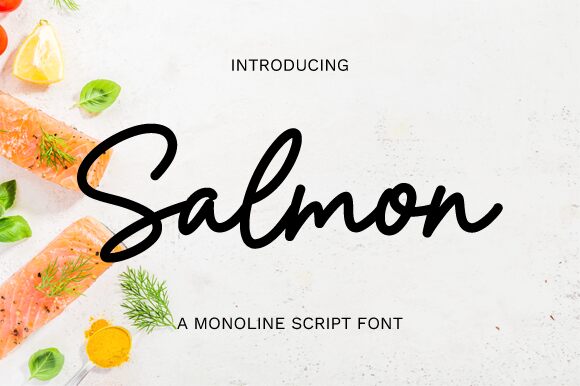
Salmon
Salmon, a captivating monoline handwritten font crafted by Graphix Line Studio, exudes a sense of effortless elegance and casual sophistication. Its fluid, organic strokes convey a warm and inviting tone, making it a delightful choice for a wide range of design projects. The font's distinctive character and alluring aesthetic lend themselves seamlessly to branding, packaging, and editorial applications, imbuing them with a touch of refined charm.
This versatile font shines in contexts where a personal, handcrafted feel is desired, such as in wedding stationery, greeting cards, or artisanal product labels. Its natural, expressive qualities also make it an excellent selection for lifestyle blogs, fashion and beauty brands, or any design endeavor seeking to cultivate a genuine, heartfelt connection with the audience.